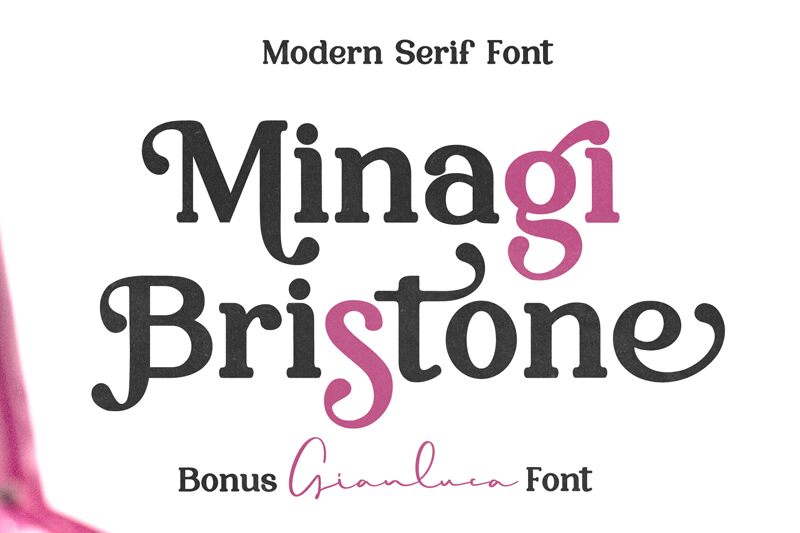
Minagi Bristone, a remarkable serif font designed by Bearytype, combines elegance with modernity.
Its clean lines and delicate serifs create an air of sophistication, making it perfect for luxury brands and high-end fashion projects. With its semi-bold weight, it adds a touch of confidence to corporate materials and professional presentations. The versatility of Minagi Bristone shines through in editorial layouts, bringing a refined charm to magazine spreads and book covers. This typeface's distinct character lends itself beautifully to wedding invitations, giving them an exquisite touch that captures the essence of romance.